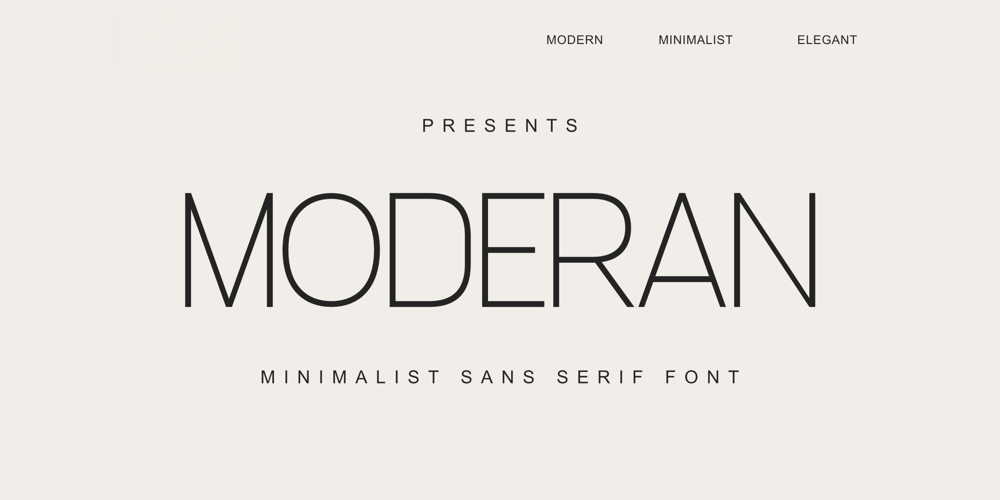
Moderan Font Family was designed by Dani Irawan and published by GraphTypika. Moderan contains 2 styles and family package options. Introducing ModeranModeran is a contemporary display sans serif font that embodies modern minimalism and understated elegance. Designed with clean lines, geometric precision, and a sleek aesthetic, it excels in commanding attention for headings, titles, and branding projects. Its versatile character set and balanced proportions make it ideal for editorial layouts, digital interfaces, and luxury branding, offering both readability and a striking visual impact. Whether for bold statements or refined accents, Moderan’s minimalist charm ensures timeless sophistication in any design context.